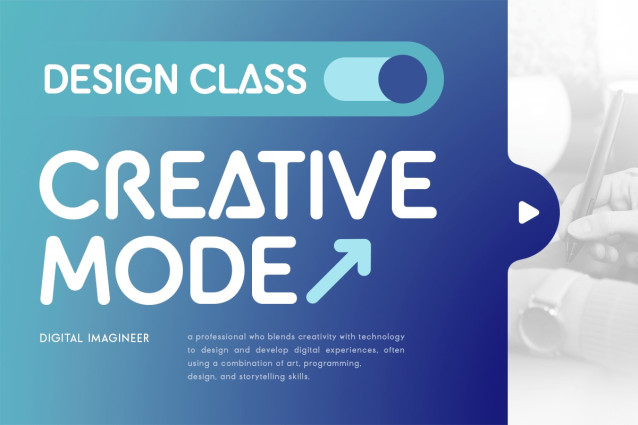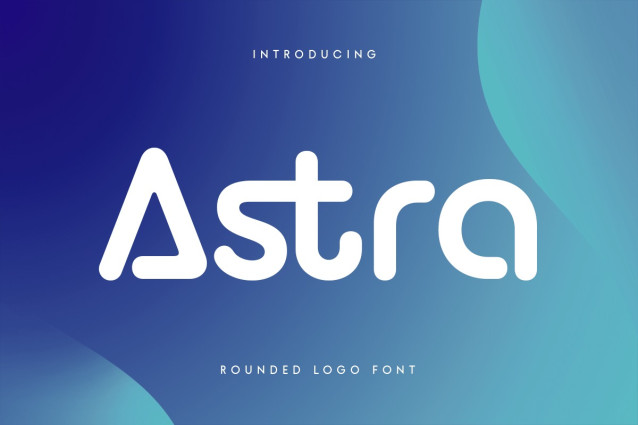
Astra Sans Serif Font
Astra Sans Serif Font is a modern, rounded logo font designed to add a playful yet professional touch to any brand identity. Its soft, gentle curves give it a friendly and approachable feel, making it perfect for logos, product packaging, and creative design projects that need a touch of warmth and simplicity. Astra’s elegant design allows it to stand out while maintaining the modern, minimalist feel of your brand image.
With its clean, rounded edges, Astra brings a touch of freshness and modernity to any project. Whether you’re designing for tech startups, lifestyle brands, or personal projects, this font is versatile enough to adapt to different sectors and styles while maintaining its charm and legibility.
Astra comes with alternate characters and full multilingual support, giving designers the flexibility to create logos and visual content that reflect a brand’s unique personality. Its combination of style, simplicity, and functionality makes Astra a must-have font for modern branding projects.